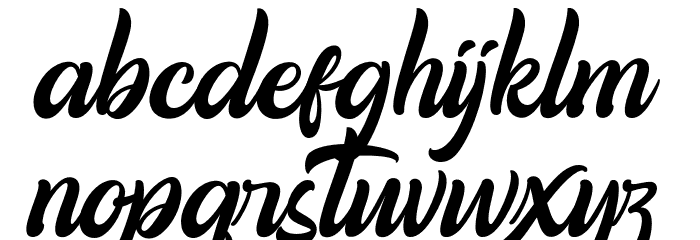
Amigos Font
This font features a dynamic and flowing script style, characterized by its elegant and cursive letterforms. The uppercase letters exhibit a graceful, sweeping motion, while the lowercase letters maintain a consistent, fluid connection. The numerals are bold and slightly slanted, complementing the overall cursive aesthetic. Special characters are integrated seamlessly, maintaining the font's cohesive style. The strokes are thick and consistent, providing a bold presence that stands out in any design.
A bold, cursive script font with elegant, flowing letterforms.
- Font: Amigos
- Proposed Projects: Ideal for wedding invitations, branding, logo design, and elegant signage.
- Category: Script
- Overall Style: Elegant
- Use Case: Logos, Invitations, Branding